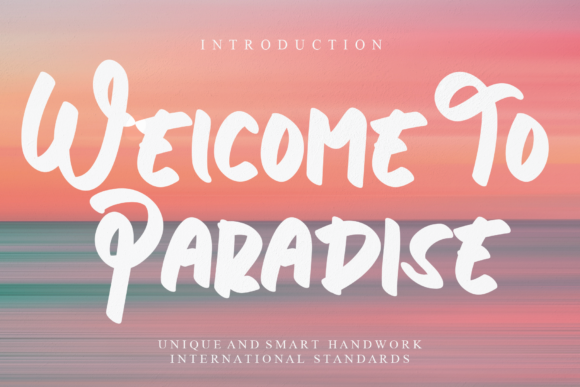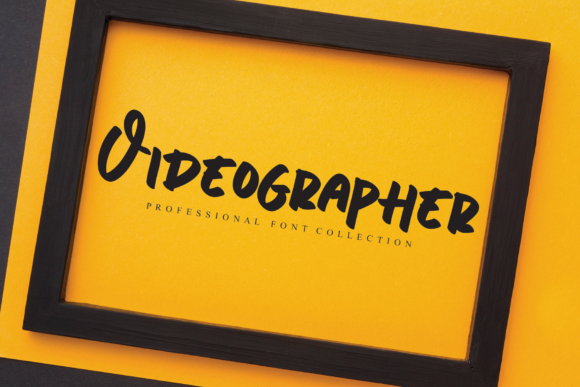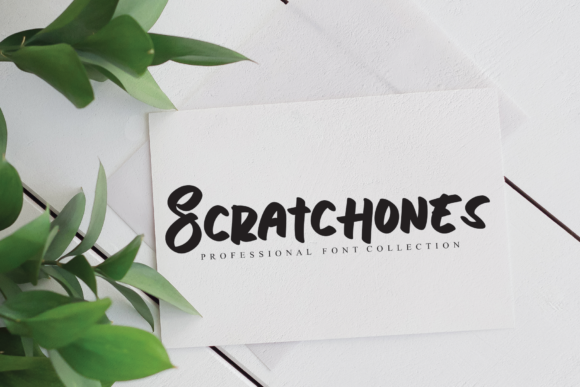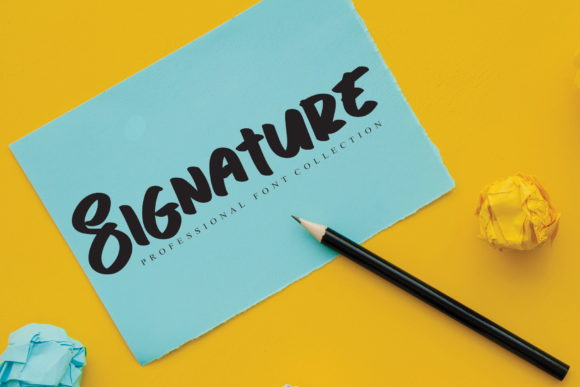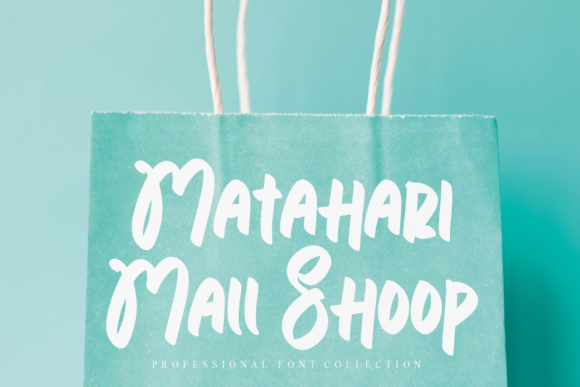
Welcome to Paradise Font
About Welcome to Paradise Font
Welcome to paradise is a unique handwritten font that perfectly combines a calligraphic style with a bold, solemn attitude!